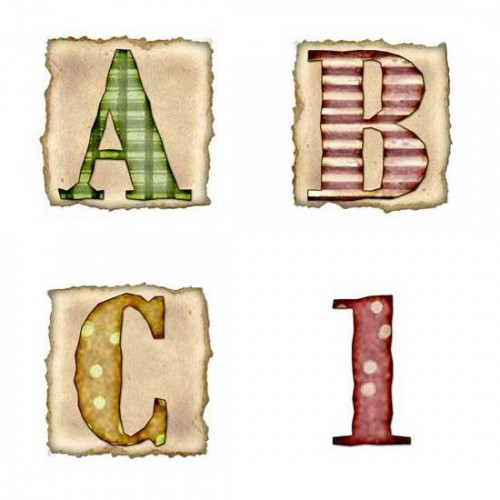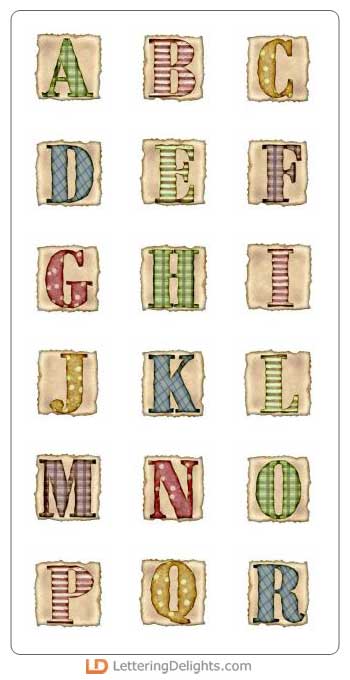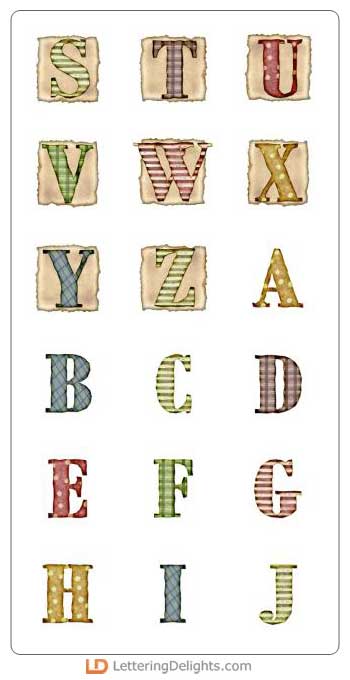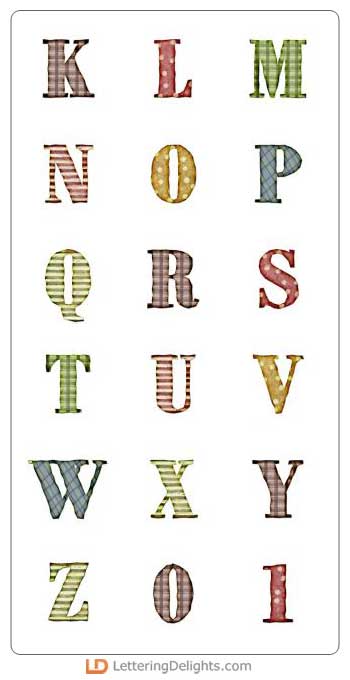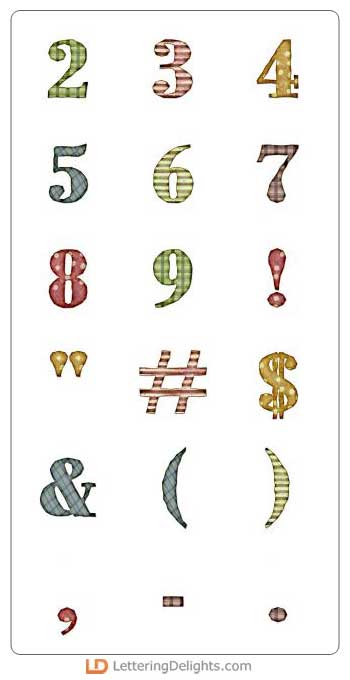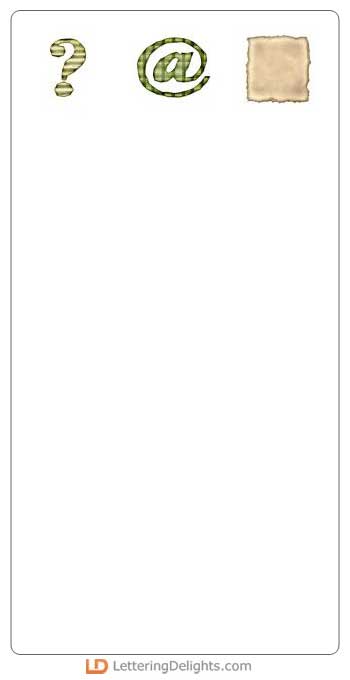
Add colorful homespun detail to your next scrapbook page. "Life's a Trip" alphabet is the perfect choice for titles, captions, journaling or embellishments. Download these letters also to design personalized favors for parties or sentiments on greeting cards.